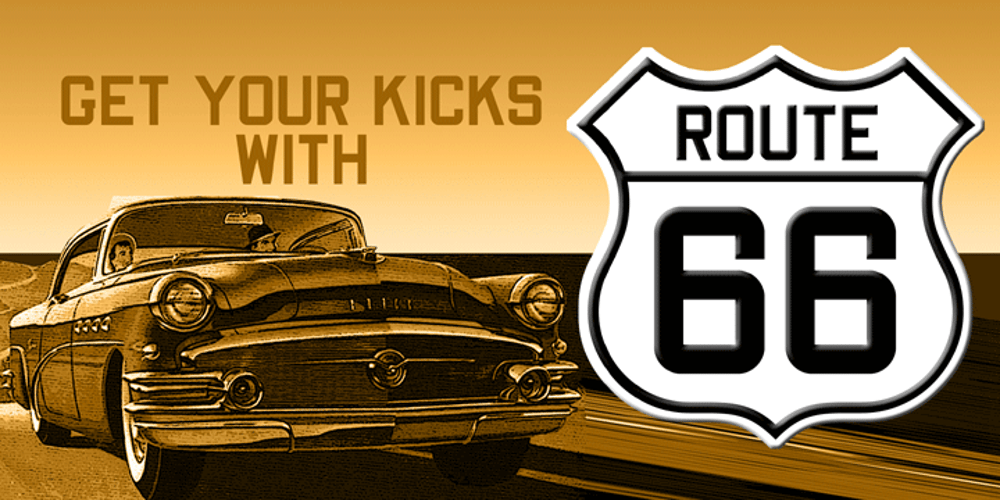
Route 66 NF
Route 66 NF font
Route 66 NF Font Family was designed by Nick Curtis and published by Nick’s Fonts. Route 66 NF contains 2 styles and family package options. Statistics Prove. Near and Far. That Folks Who Drive Like Crazy. Are! Burma-Shave. In the days before the Interstate Highway system, you were likely to encounter a series of signs like this, somewhere in the backwoods between the large and small towns connected by the U.S. Highway system. The fonts in this series are based on the typefaces used on U.S. Highway signs from the 1930s to the 1950s. Included in each font are a sign shield in the backslash position, and a Burma-Shave logo in the section mark position. The Truetype and Opentype versions contain the complete Latin language character set (Unicode 1252) plus Central European (Unicode 1250) languages as well.